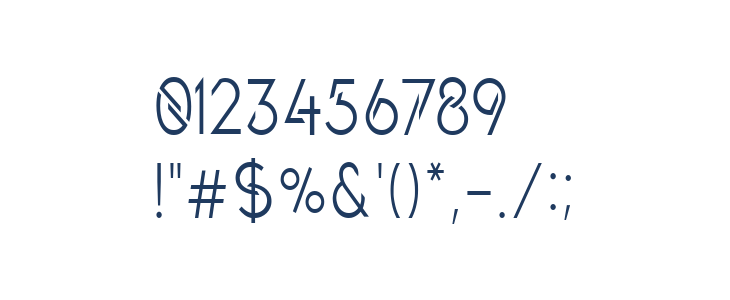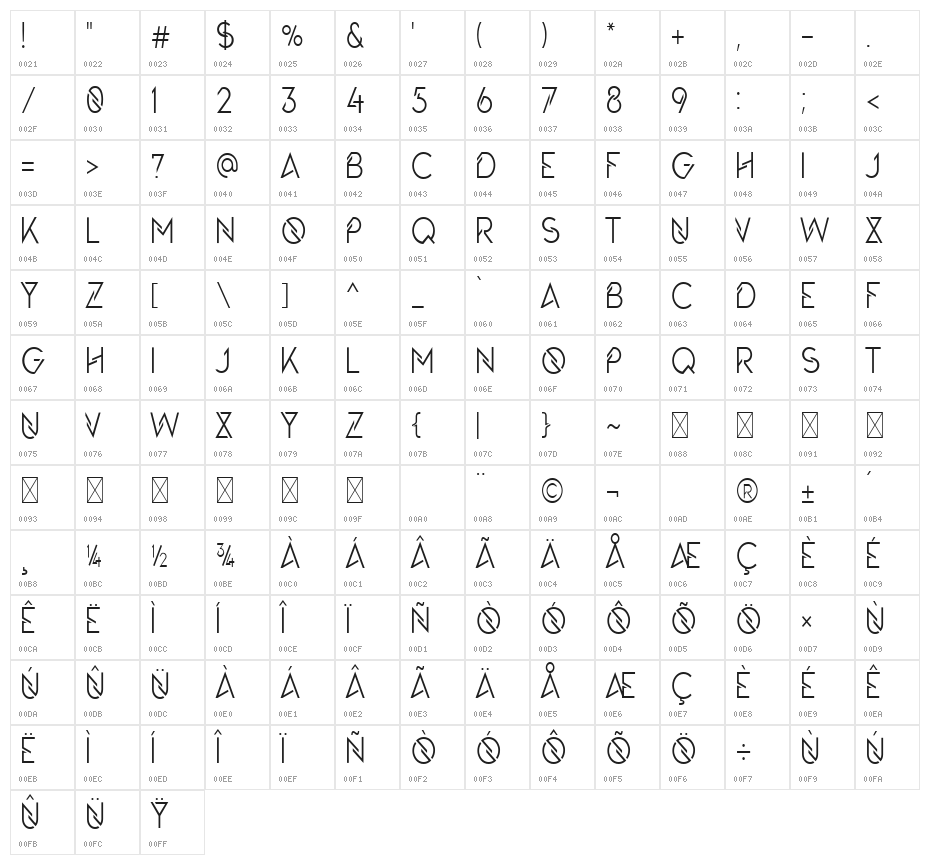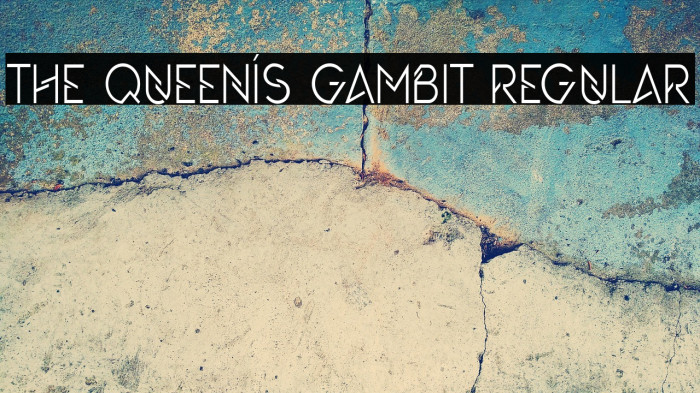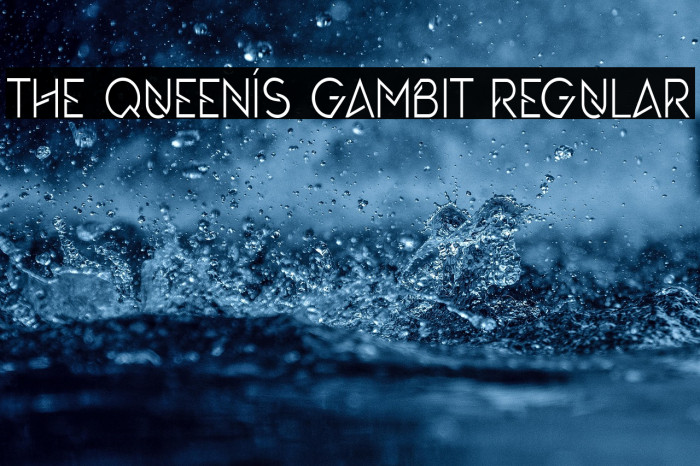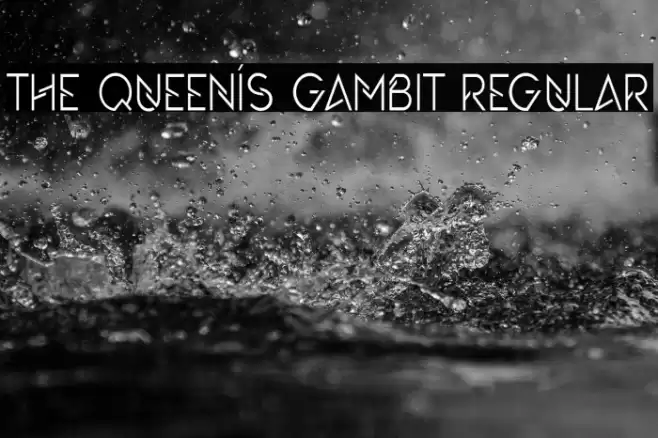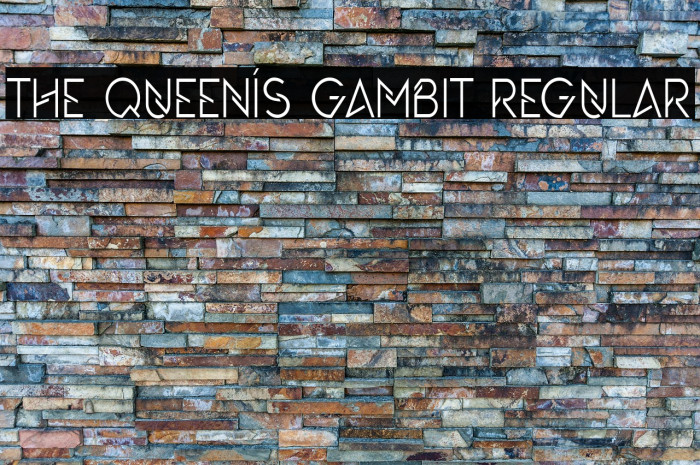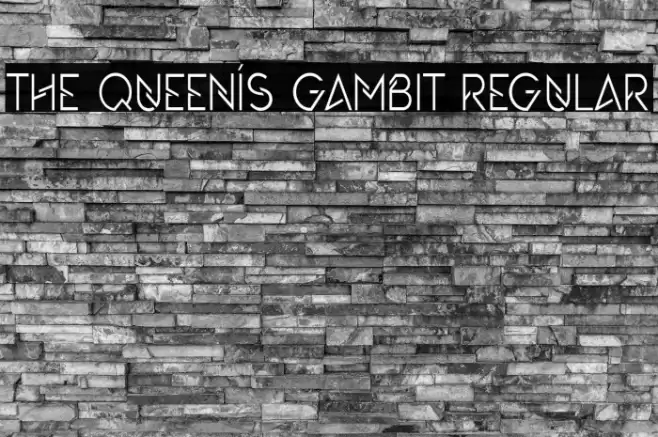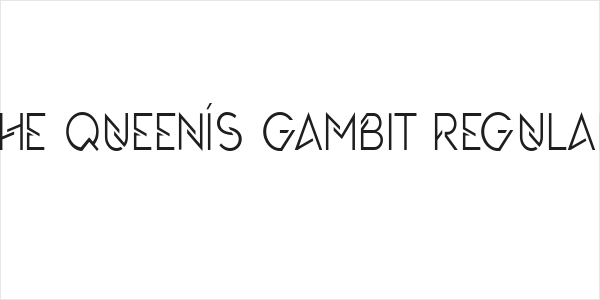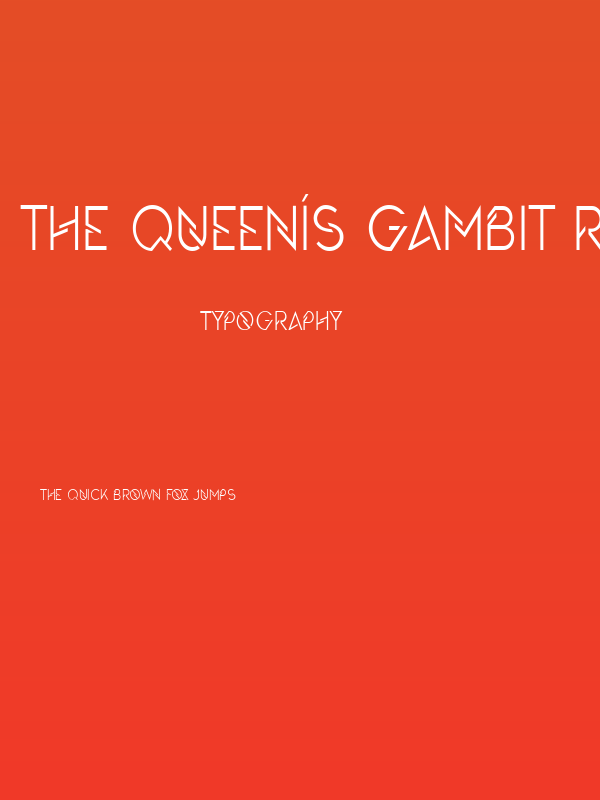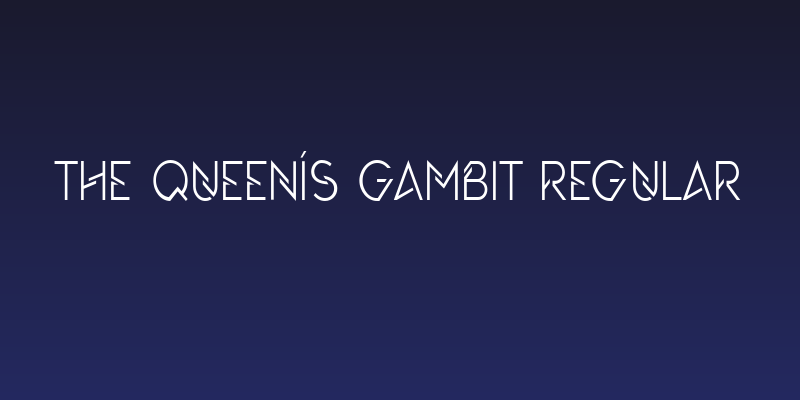
The Queenís Gambit Regular Font
The Queenís Gambit Regular Description
This font features a modern and geometric design with a unique twist on traditional letterforms. The characters are constructed with clean, straight lines and sharp angles, giving them a futuristic and edgy appearance. The uppercase letters are particularly striking, with some characters incorporating diagonal cuts and unconventional shapes. The numerals and special characters maintain the same geometric style, ensuring consistency throughout. This font's distinct style makes it ideal for projects that require a bold and contemporary look.
| Proposed Projects | Ideal for branding, logos, posters, and modern web design. |